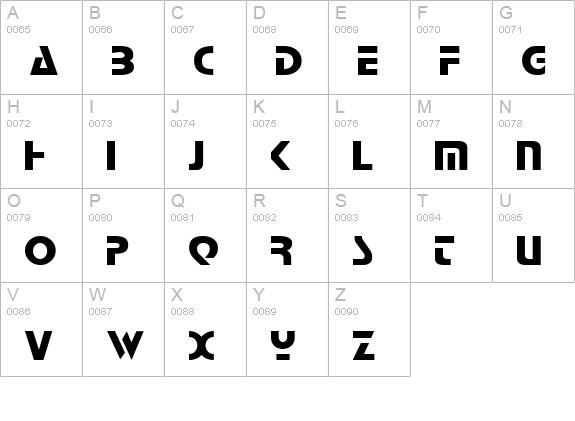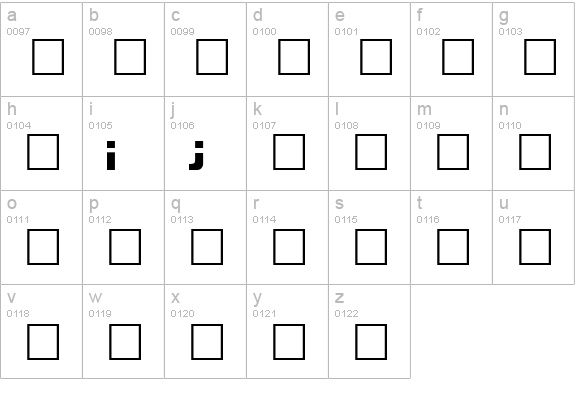
Comaro Normal Font Details
Comaro Normal is the standard, neutral variant in the Comaro typeface family \xE2\x80\x94 well suited to general body text, paragraphs, and standard typographic work.
Comaro Normal font is a stunning display typeface that seamlessly blends modernity with elegance. Its clean lines and balanced proportions make it a versatile choice for various design projects, whether it be branding, advertising, or editorial work. This font captures attention with its distinct yet approachable look, making it perfect for creating eye-catching headlines and titles. Its carefully crafted letterforms exude a sense of sophistication and professionalism, making it an ideal choice for corporate and business-related designs. Comaro Normal font's versatility extends beyond its captivating appearance. Its extensive character set includes a wide range of diacritics and special characters, ensuring that it can be used for multilingual projects without any limitations. This feature makes it a valuable asset for global brands and designers working on international campaigns. One of the most appealing aspects of Comaro Normal font is that it is free. That's right, this exceptional font is freely available to download at FontsMarket.com. This means that you can enhance your design projects with a high-quality, professionally designed font without breaking the bank. Whether you're a seasoned designer looking to add a touch of elegance to your work or a beginner exploring the world of typography, Comaro Normal font is a must-have in your font library. Its timeless appeal and versatile nature ensure that it will remain a valuable asset for years to come. So why wait? Download Comaro Normal font today and elevate your designs to new heights of sophistication and style.